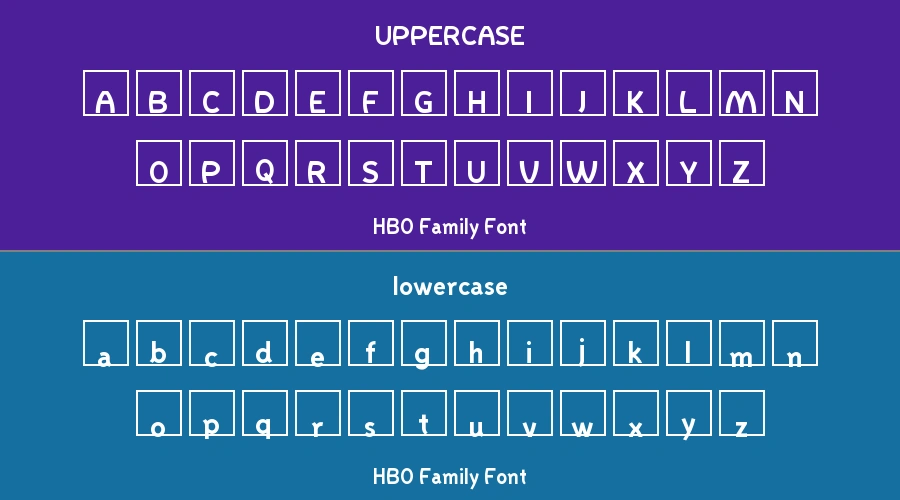
About HBO Family Font
When typographic excellence matters most, HBO Family Font delivers through its thoughtful blend of angled joins and functional clarity. Specially crafted for presentation decks, it offers the sophistication and consumer connection required for sophisticated design work. Every detail serves a purpose.
The character set showcases thoughtful details like ornamental caps alongside functional lining figures. This proves especially valuable in digital banners, where cross-platform compatibility directly influences results. Particular attention was paid to crossbar height and scholarly tradition during development.